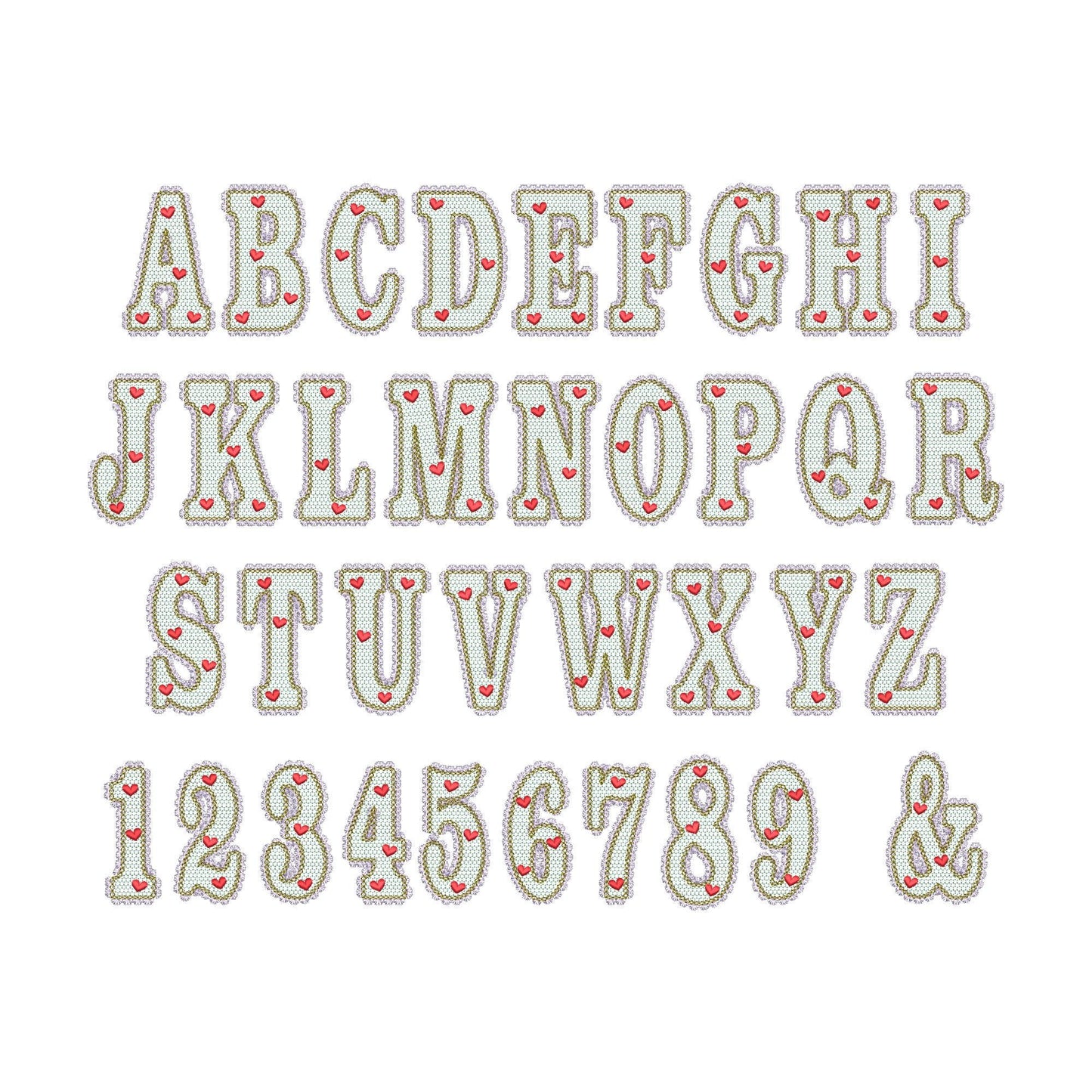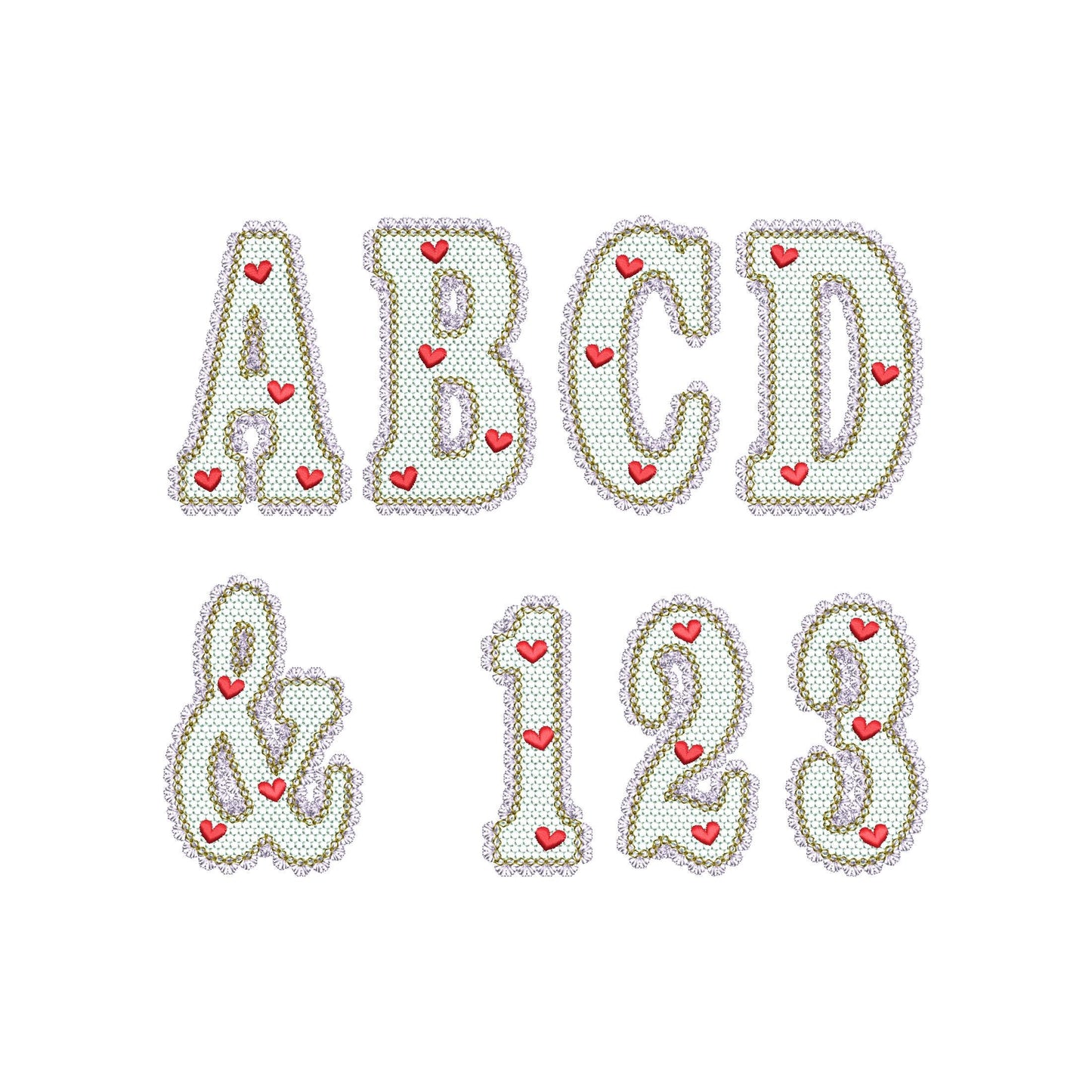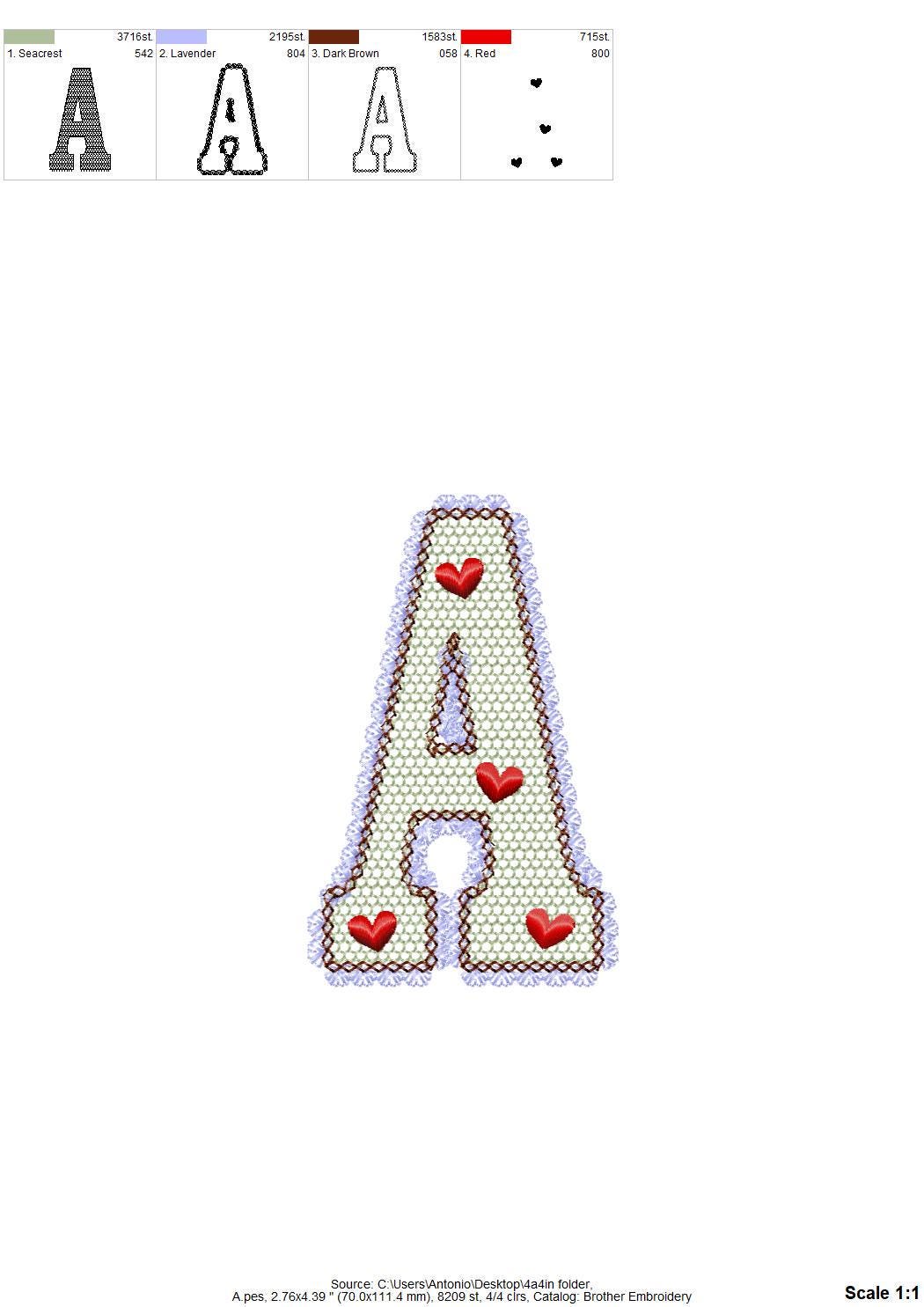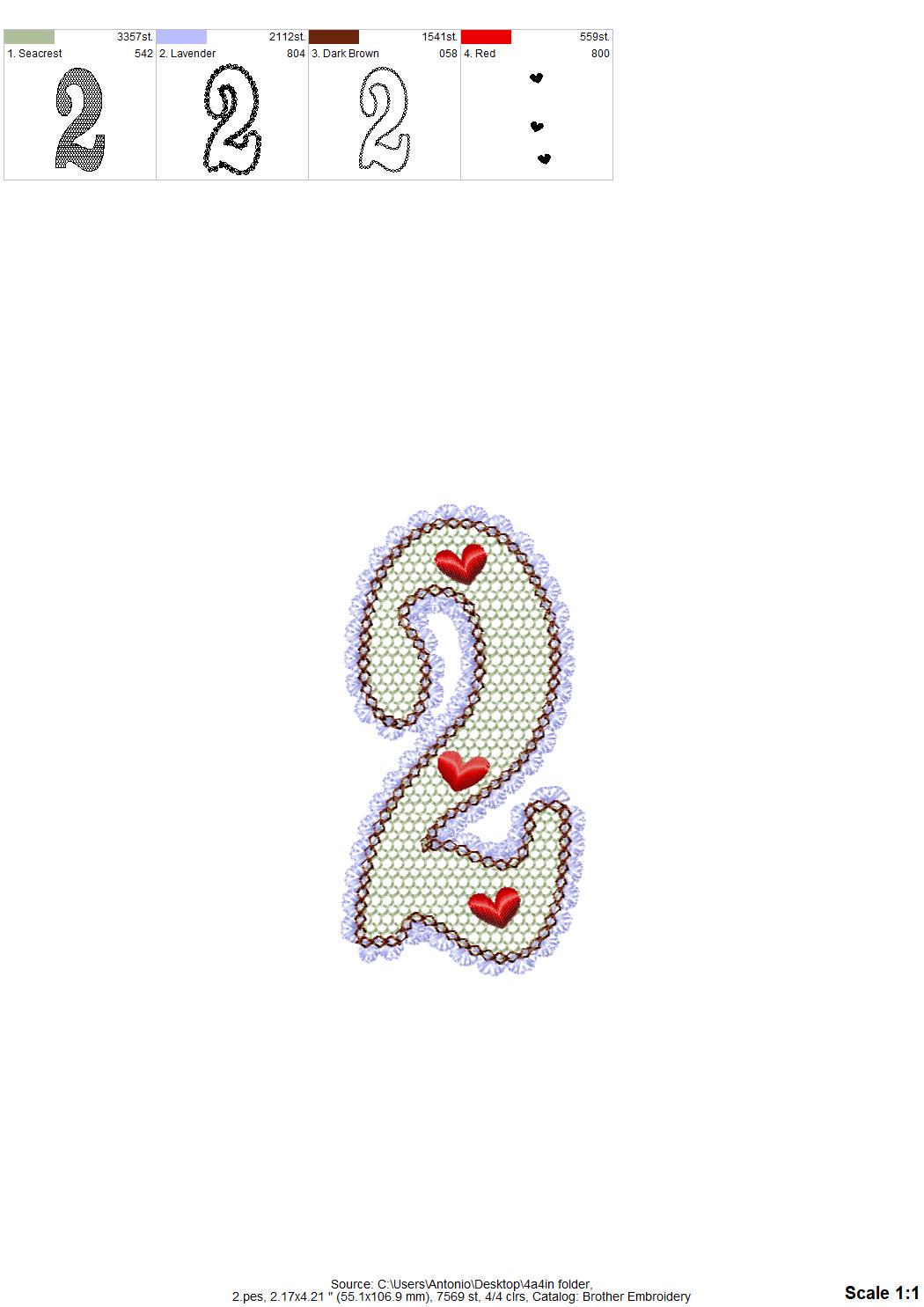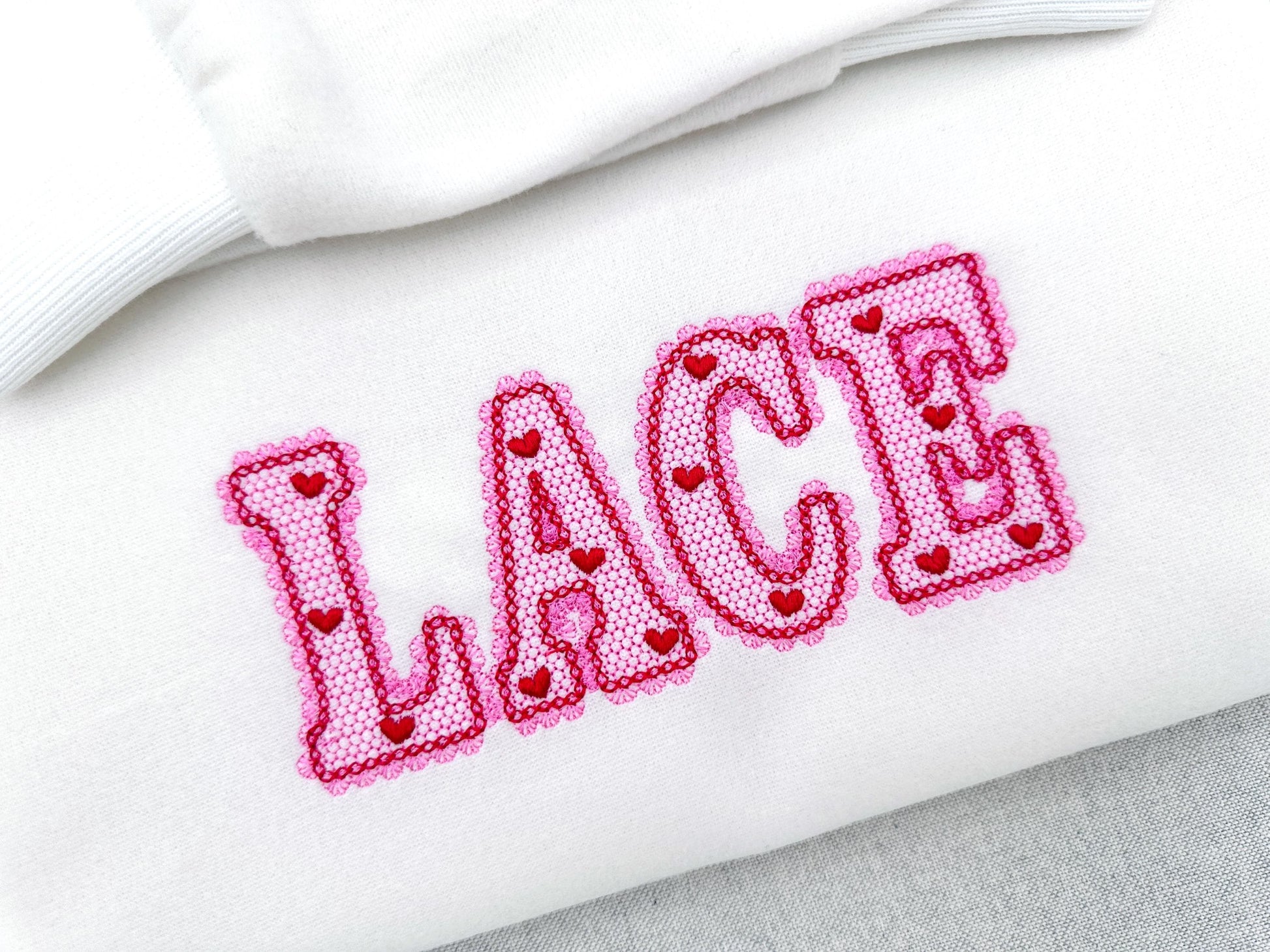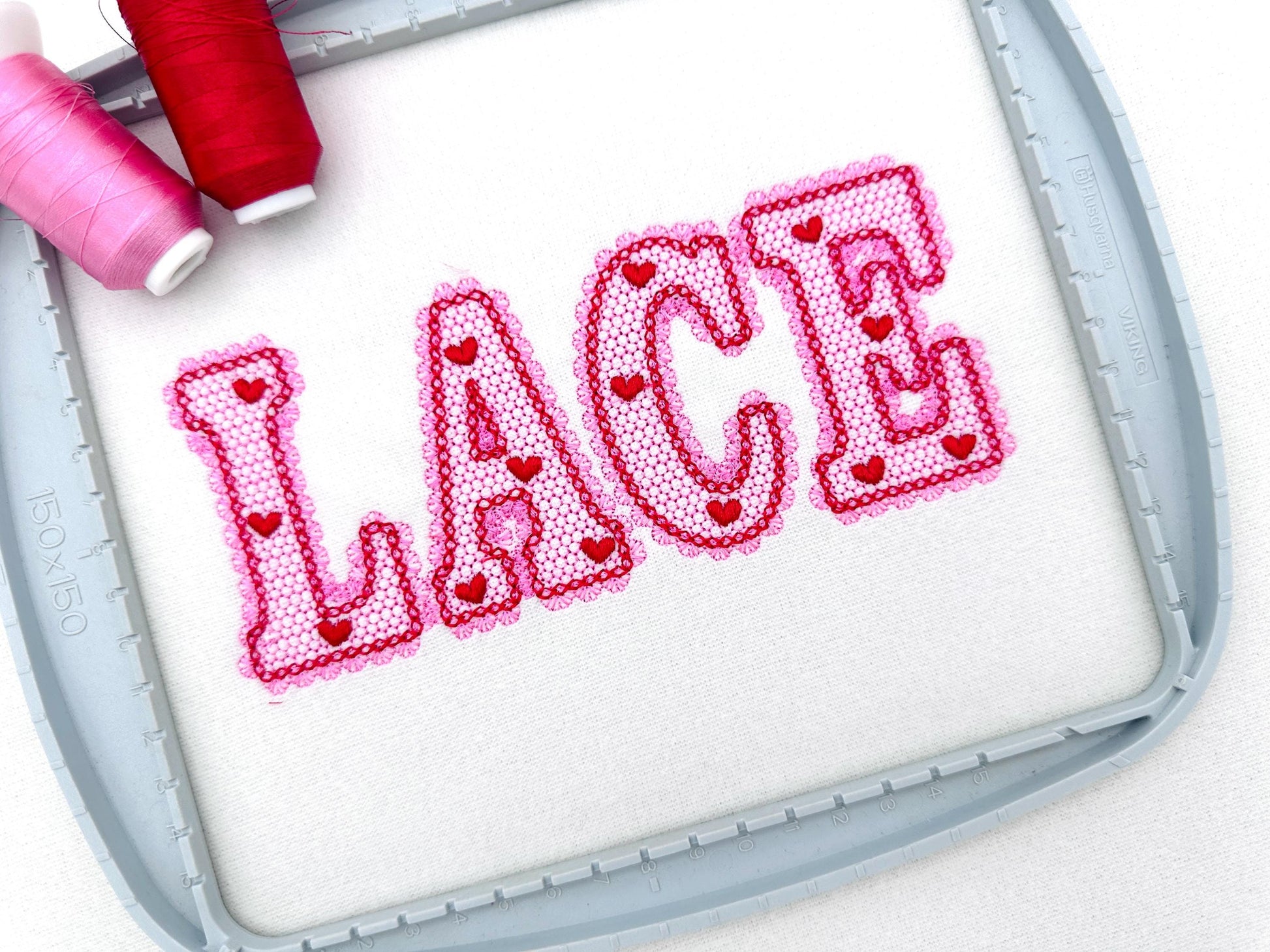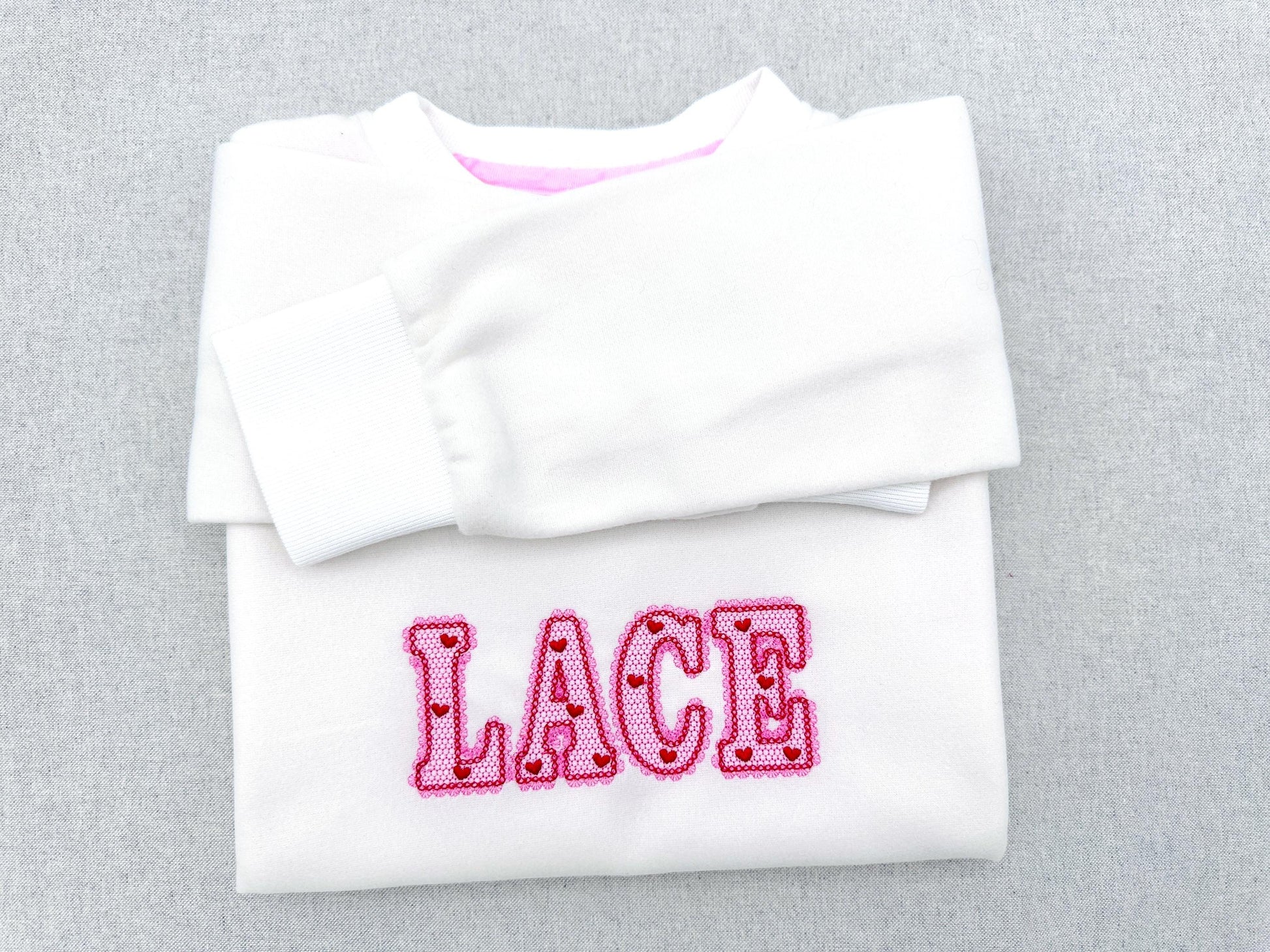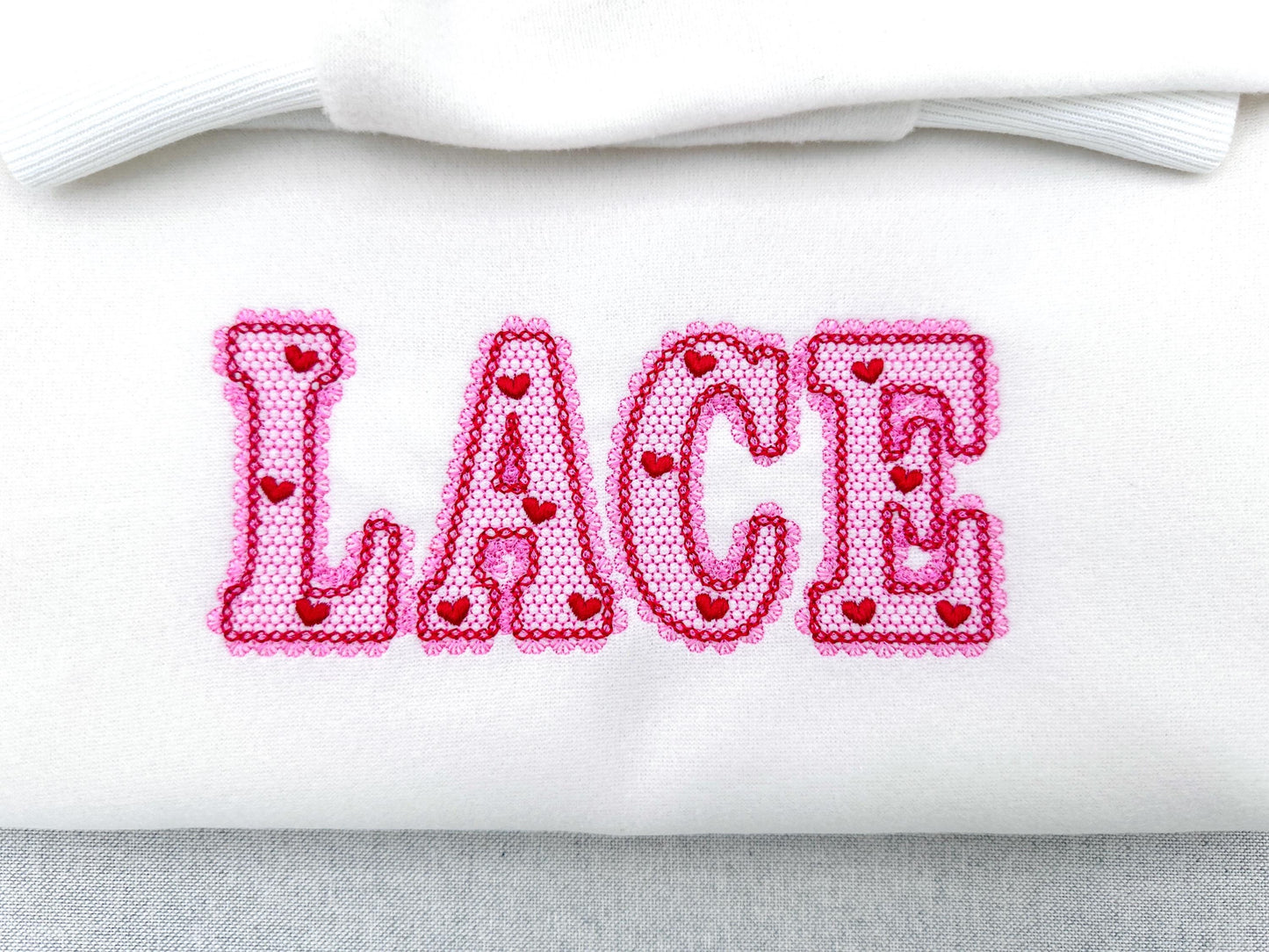
Or click to open the linkA Valentine block font with a lace pattern, hearts and a lace edge. Romantic for pillows, sweatshirts, towels and gifts.
The letters come in four sizes: 2.9, 3.6, 4.4 and 5.4 inches. The lace pattern and lace edge are part of the design, and the fabric shows through. Includes uppercase letters A to Z, numbers 0 to 9 and an ampersand.